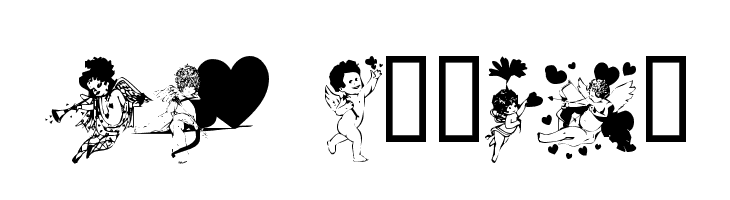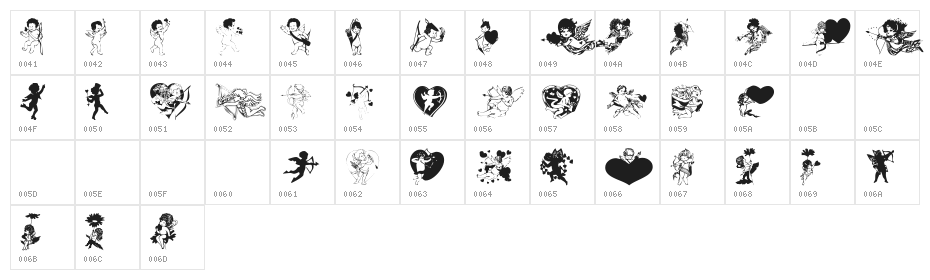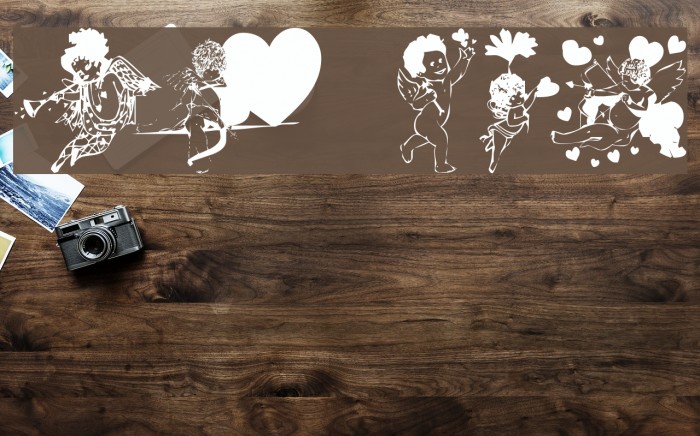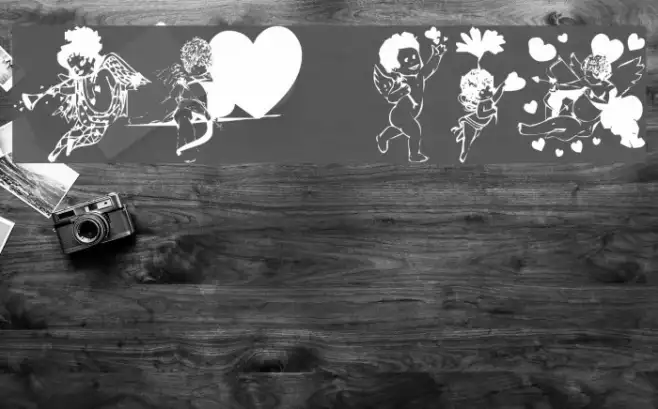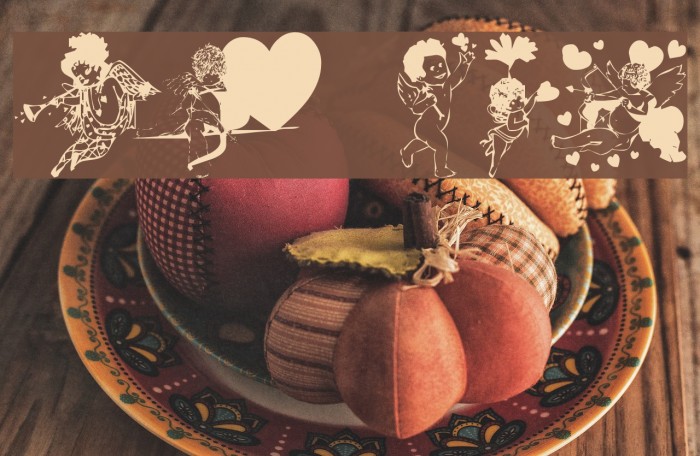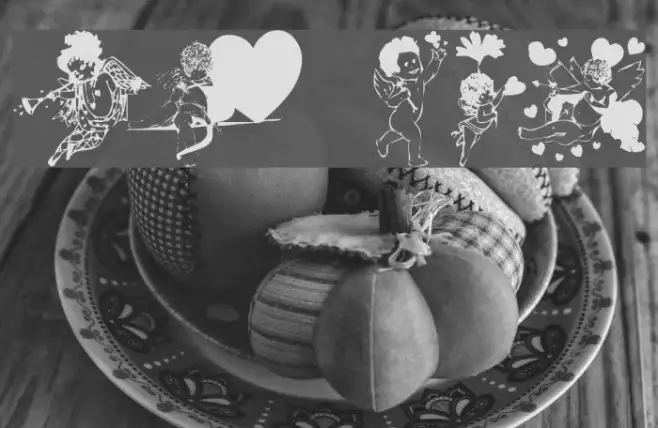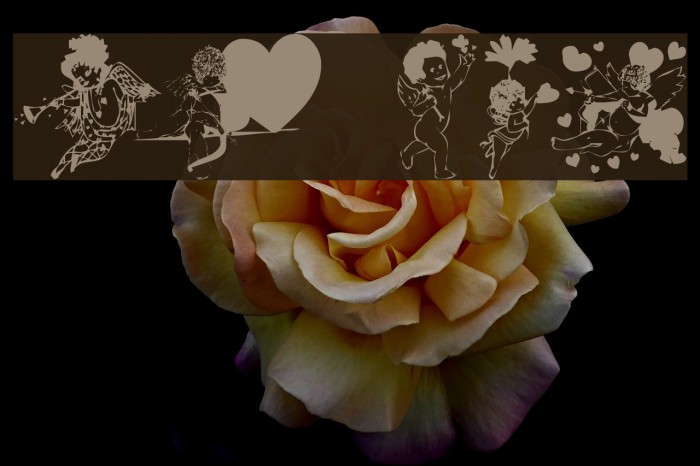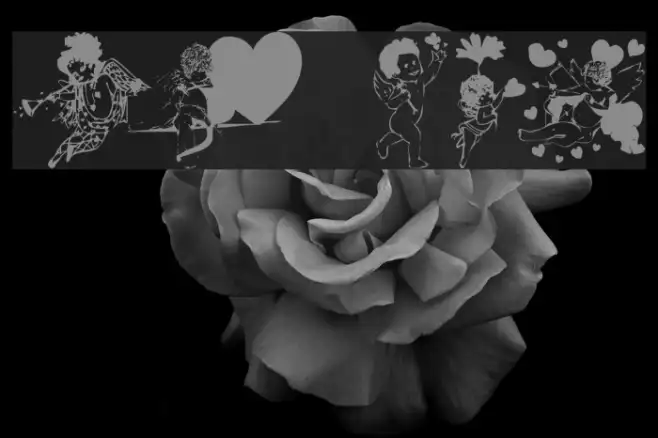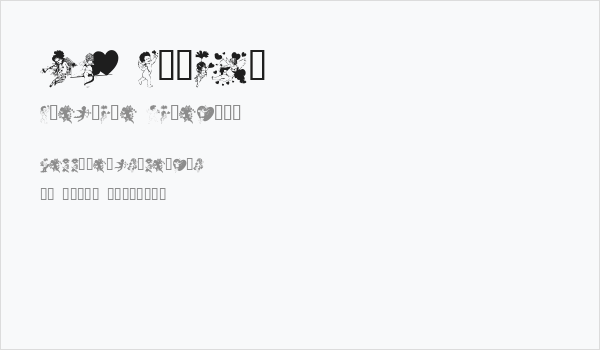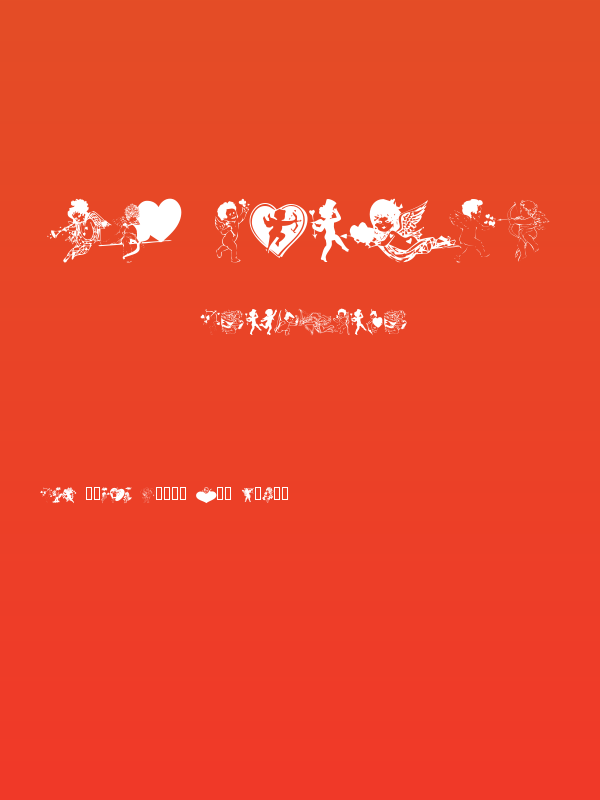
LM Cupids Font
LM Cupids Description
This is not a traditional font but rather a collection of decorative cupid-themed illustrations. Each character is represented by a unique cupid design, featuring various poses and activities, often involving hearts and arrows. The designs are playful and whimsical, capturing a romantic and lighthearted essence. These illustrations are detailed and intricate, making them suitable for decorative purposes rather than standard text display.
| Use Case | Decorative elements, Themed designs |
| Proposed Projects | Ideal for Valentine's Day cards, wedding invitations, romantic event decorations, and themed graphic design projects. |